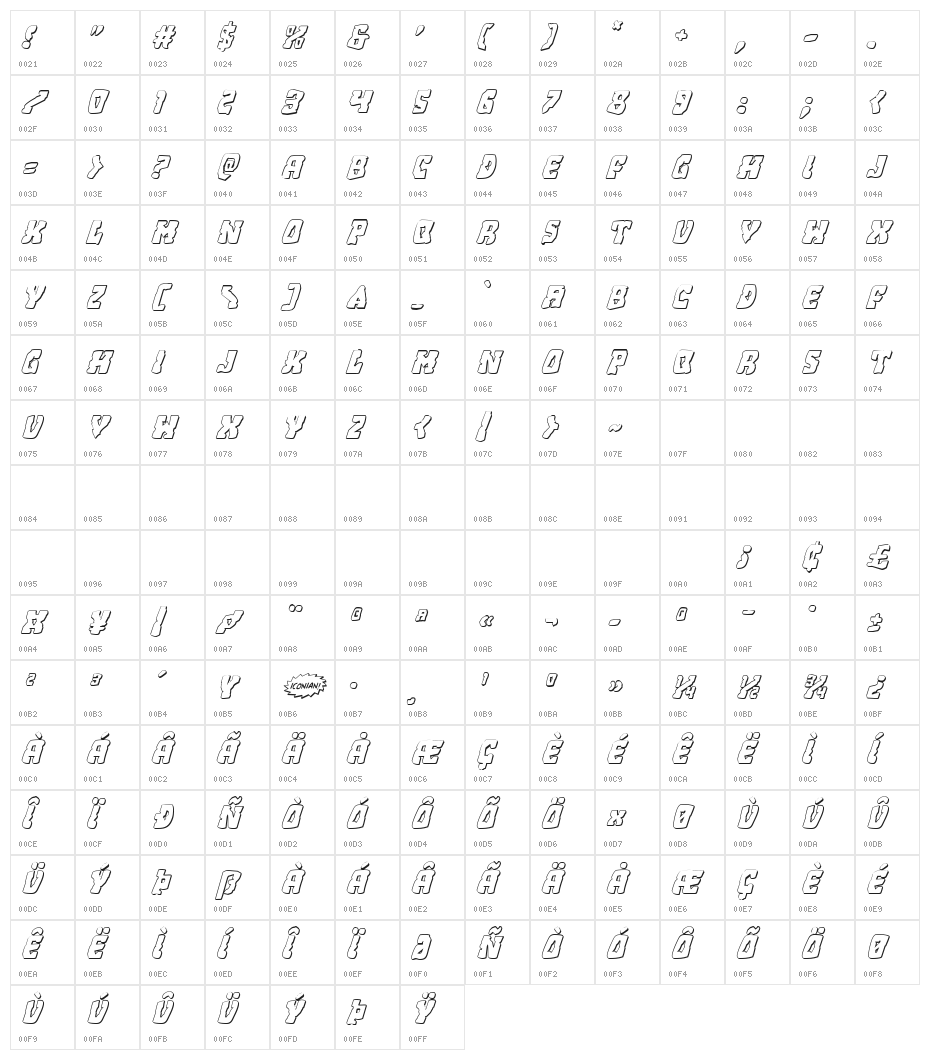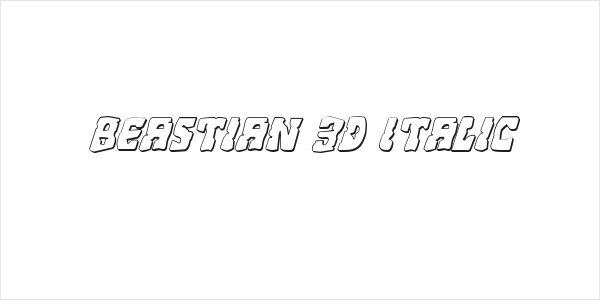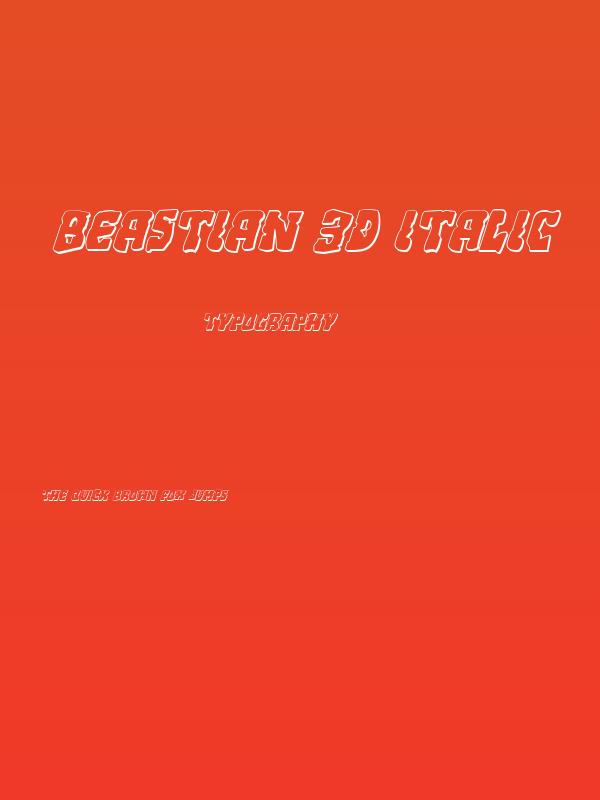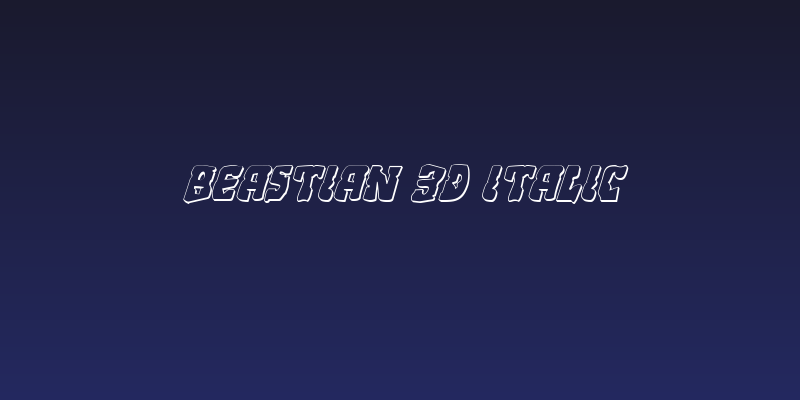
Beastian 3D Italic Font
Beastian 3D Italic Description
This font features a bold, three-dimensional style with an italic slant, creating a dynamic and eye-catching appearance. The letters are outlined, giving them a distinct, shadowed effect that enhances their 3D look. The characters are uniformly bold, with a consistent stroke width that maintains readability while adding a playful, cartoonish vibe. The font's design is suitable for projects that require a fun and engaging aesthetic, such as children's books, comic strips, or playful branding. Its unique style makes it stand out, ensuring that any text using this font will capture attention.
| Proposed Projects | Ideal for children's books, comic strips, playful branding, and eye-catching headlines. |